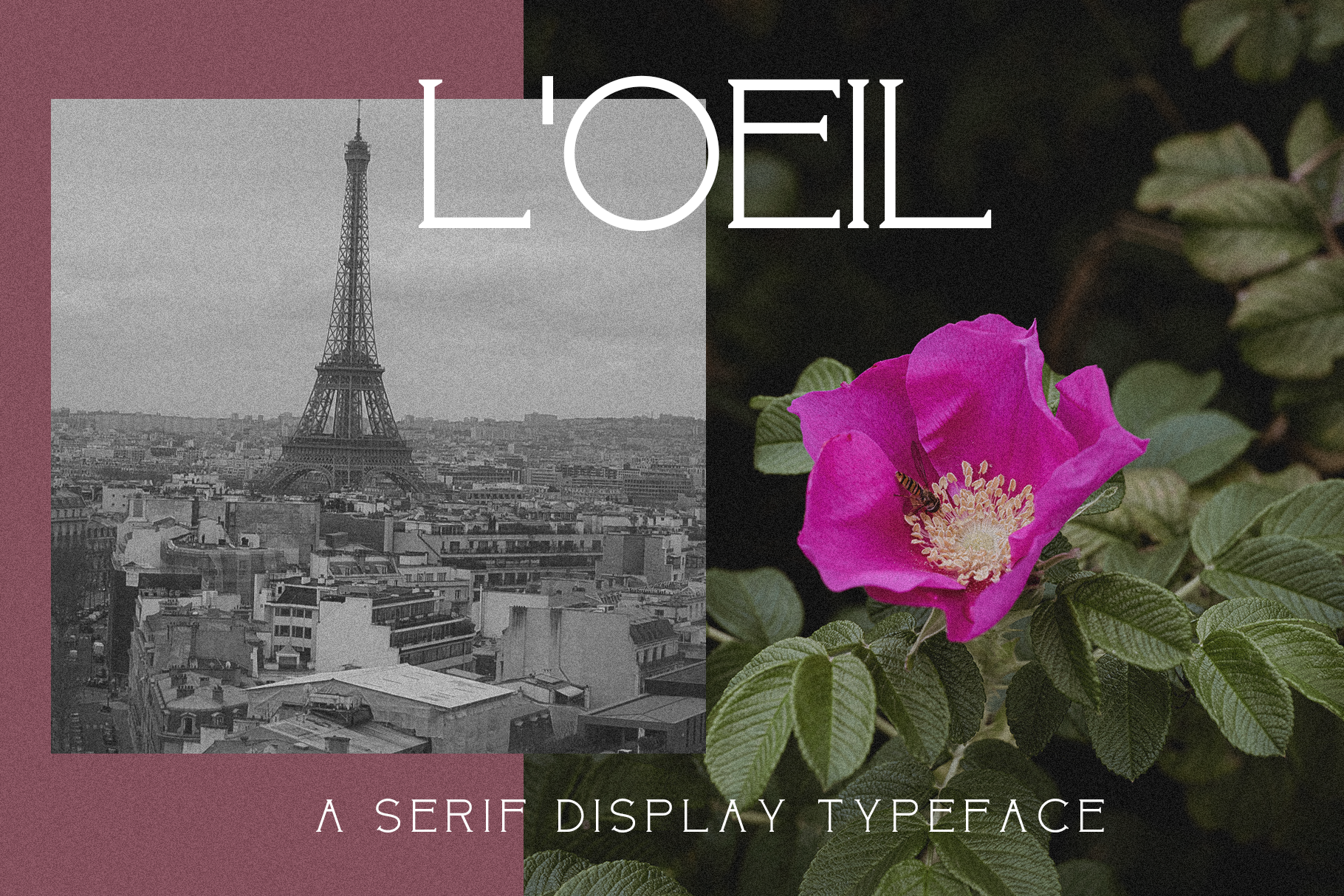
L'OEIL | Minimal Serif Font
L'OEIL™ is a minimal serif, all caps display typeface designed for posters, social graphics, brand identities and more designed by Kelsey Kleiner here at OneTen.
L'OEIL™ includes uppercase, 0-9, basic punctuation and is multilingual.